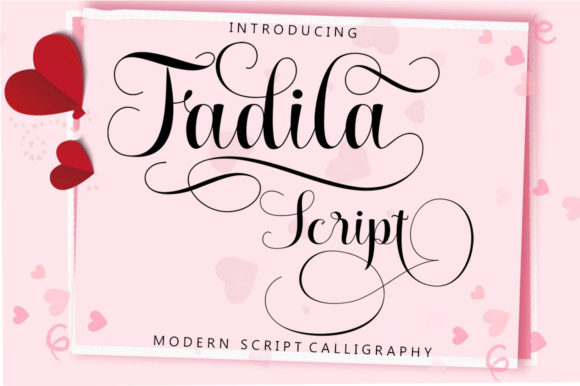
Behold, Fadila Font—a calligraphic wonder that captures the essence of grace and sophistication. Its intricate curves and elegant strokes evoke a sense of timeless beauty, leaving an indelible mark on your creative endeavors. Experience the allure of this script font, meticulously crafted to bring a touch of artistry to your digital designs.
With Fadila Font, you'll discover a treasure trove of possibilities, unleashing your creativity like never before. This font's delicate nature lends itself effortlessly to a myriad of applications, from heartfelt love letters and captivating invitations to mesmerizing social media posts and eye-catching branding. Its versatility knows no bounds, making it the perfect choice for designers, artists, and creative professionals seeking to elevate their work.
Fadila Font's enchanting aura is sure to cast a spell on your audience, leaving them captivated by its allure. Its distinct and well-rounded letters dance across the screen, creating a visual symphony that harmonizes with your creative vision. Whether you're crafting a heartfelt message or designing a captivating logo, Fadila Font will add an irresistible touch of elegance and sophistication.
Embrace the boundless potential of Fadila Font and embark on a creative journey like no other. Its PUA encoding grants you effortless access to a world of glyphs and swashes, empowering you to unleash your imagination and create designs that resonate with your audience. Let Fadila Font be your creative muse, guiding you towards masterpieces that leave a lasting impression.